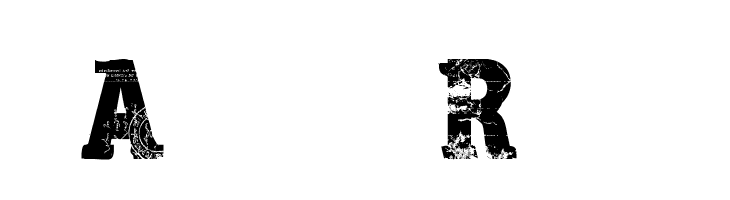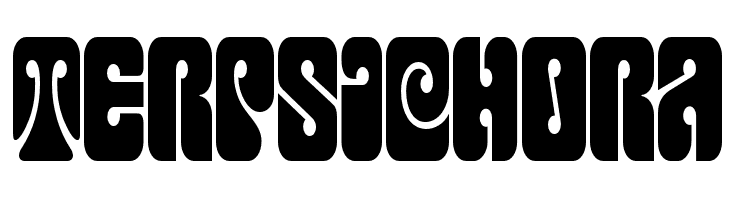
A bold, playful font with exaggerated serifs and a whimsical style.
A playful, hand-drawn font with rounded, bold characters.
A bold, hand-drawn font with a playful and artistic style.
A modern, geometric sans-serif font with uniform width and clean lines.
A playful, handwritten-style font with a whimsical and casual appearance.
A bold, outlined font with a playful, cartoonish style.
A bold, graffiti-inspired font with sharp, angular strokes and dynamic forms.
A modern, minimalist outline font with uniform stroke widths and geometric precision.
A playful, handwritten-style font with smooth, rounded strokes.
An ornate, calligraphic font with dramatic flourishes and historical elegance.
A playful, hand-drawn font with a quirky, informal style.
A modern, light sans-serif font with clean lines and balanced spacing.
A bold, geometric font with high contrast and wide spacing, perfect for impactful designs.
A playful, handwritten-style font with smooth, flowing strokes.
A distressed serif font with a grunge, textured appearance.
A bold, condensed font with sharp, angular edges and a modern geometric style.
A bold, geometric font with a modern, futuristic style.
A bold, italic, and geometric font with a futuristic style.
A bold, brush-style script font with dynamic, connected letters.
A bold, angular, semi-italic font with a futuristic design.
A bold, industrial font with geometric, blocky characters.
A bold, brush-style font with dynamic, hand-drawn strokes.
A playful handwritten font with thin, elongated strokes and irregular letterforms.
A playful, handwritten-style font with rounded, connected characters.